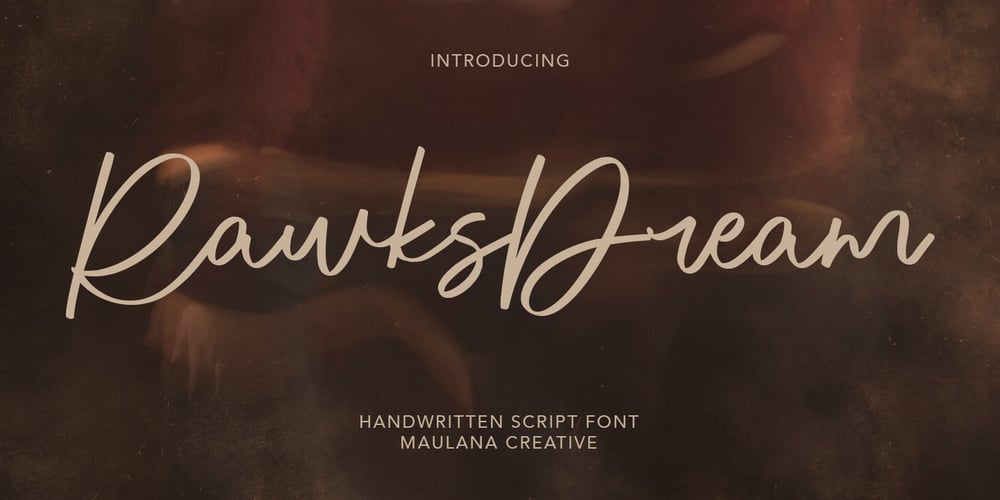
Rawks Dream Font Family was designed by Gilang Maulana and published by Maulana Creative. Rawks Dream contains 1 styles and family package options. Rawks Dream is a handwritten script font With clean stroke and fun character. It has Opentype features of ligatures character, To give you an extra creative work. Rawks Dream handwritten script font support multilingual more than 100+ language. This font is good for logo design, Social media, Movie Titles, Books Titles, a short text even a long text letter and good for your secondary text font with sans or serif. Make a stunning work with Rawks Dream handwritten script font. Cheers, MaulanaCreative